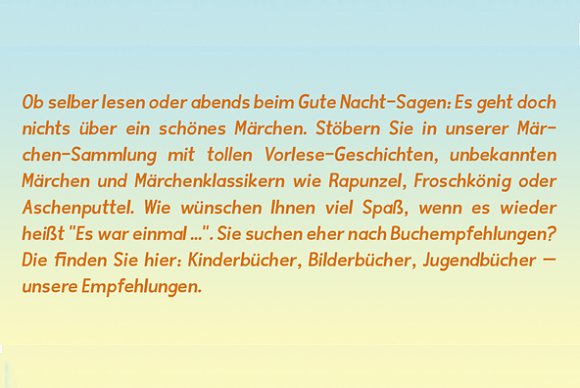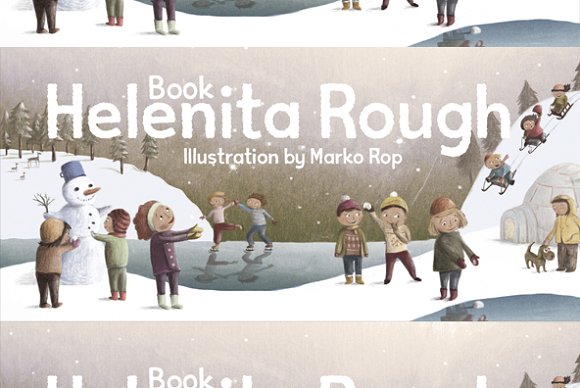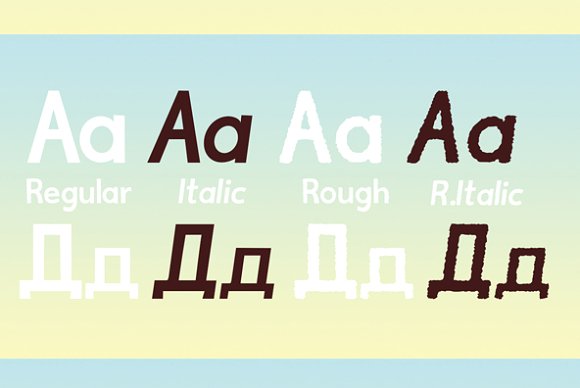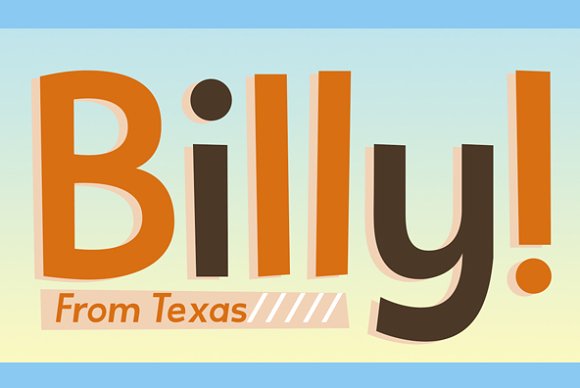
Discover the Elegance of Helenita Book Font: A Comprehensive Guide
In the world of typography, fonts play a crucial role in conveying messages, expressing emotions, and creating visual identities. For designers, crafters, and typography enthusiasts, finding the perfect font can be a daunting task. However, if you’re looking for a sans serif font that exudes elegance and versatility, look no further than Helenita Book Font. In this article, we’ll delve into the world of Helenita Book, exploring its features, styles, and uses, as well as provide tips on how to make the most of this beautiful font.
What is Helenita Book Font?
Helenita Book is a stunning sans serif font created by Rodrigo Typo, a renowned typographer. This font is designed to provide a clean and modern look, making it perfect for a wide range of applications, from digital media to print materials. Helenita Book comes in four distinct styles: Helenita Book Regular, Helenita Book Italic, Helenita Book Rough, and Helenita Book Rough Italic. This versatility allows designers to experiment with different looks and moods, ensuring that their text always looks fresh and engaging.
Key Features of Helenita Book Font
- Clean and Modern Design: Helenita Book boasts a sleek and contemporary design, making it ideal for projects that require a professional and sophisticated look.
- Four Distinct Styles: The font comes in four styles: Regular, Italic, Rough, and Rough Italic, providing flexibility and variety for designers.
- Sans Serif: As a sans serif font, Helenita Book offers a clean and minimalist aesthetic, perfect for digital media and modern designs.
- High Legibility: The font’s clear and simple design ensures excellent legibility, even at small sizes.
Uses of Helenita Book Font
Helenita Book’s versatility makes it suitable for a wide range of applications, including:
- Digital Media: Use Helenita Book for website headers, blog posts, social media graphics, and more to create a modern and engaging online presence.
- Print Materials: The font is perfect for brochures, flyers, posters, and business cards, adding a touch of elegance and sophistication to your print designs.
- Branding and Identity: Helenita Book can be used to create a consistent visual identity for brands, helping to establish a strong and recognizable image.
- Crafting and DIY Projects: Crafters and DIY enthusiasts can use Helenita Book to add a personal touch to their projects, such as handmade cards, scrapbooking, and more.
Tips for Using Helenita Book Font
To get the most out of Helenita Book, consider the following tips:
- Experiment with Styles: Mix and match the different styles to create visual interest and hierarchy in your designs.
- Pair with Other Fonts: Helenita Book can be paired with other fonts to create a unique and harmonious typography combination.
- Adjust Font Sizes: Play with font sizes to create emphasis and add depth to your designs.
- Use for Headings and Body Text: Helenita Book is suitable for both headings and body text, making it a great choice for long-form content.
Helenita Book Font is a beautiful and versatile sans serif font that offers a range of creative possibilities for designers, crafters, and typography enthusiasts. With its clean design, four distinct styles, and high legibility, Helenita Book is perfect for a wide range of applications, from digital media to print materials. By following the tips outlined in this article, you can unlock the full potential of Helenita Book and take your designs to the next level.
Whether you’re a seasoned designer or just starting out, Helenita Book Font is definitely worth exploring. So why not give it a try and discover the elegance and versatility of Helenita Book for yourself?